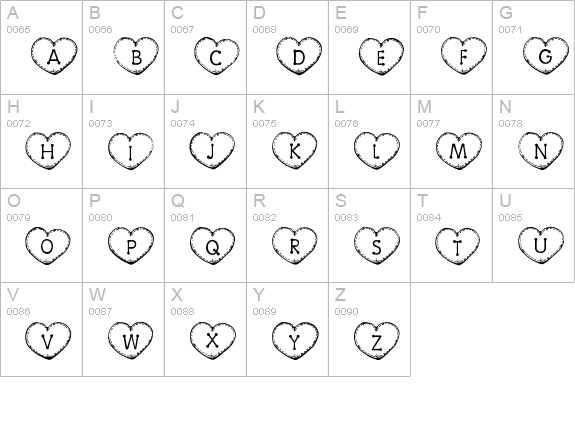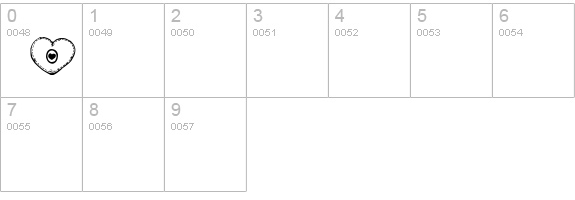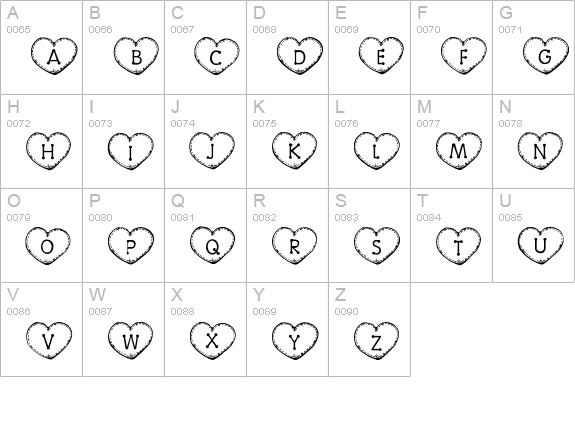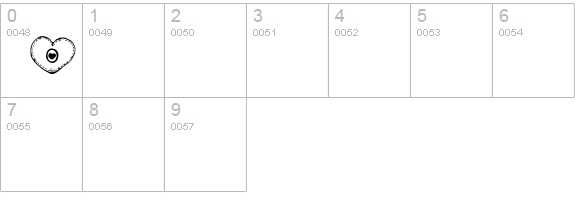
Country Hearts font is a charming and whimsical typeface that exudes warmth and rustic charm. Perfect for adding a touch of country flair to your design projects, this font features decorative heart motifs intertwined with each letter, creating a delightful and romantic feel. Whether you're working on invitations, greeting cards, or branding materials, Country Hearts font will bring a sweet and inviting touch to your work. Best of all, Country Hearts font is available for free download at FontsMarket.com. With its unique design and easy-to-read style, this font is sure to add a touch of love and personality to any project. Download Country Hearts font today and let your creativity blossom with this delightful typeface!